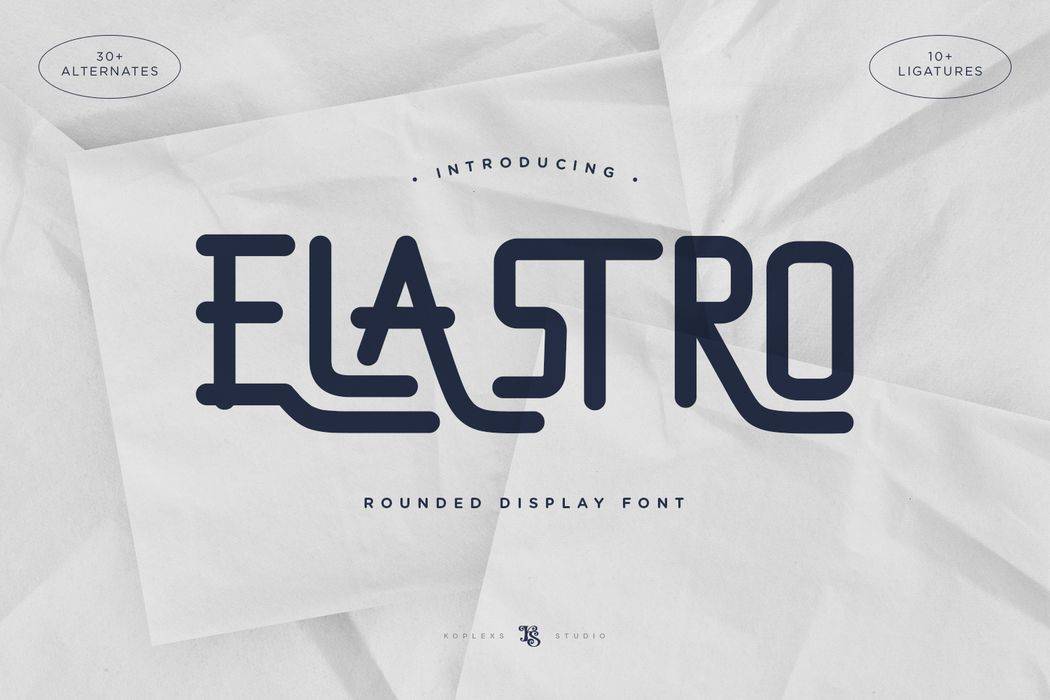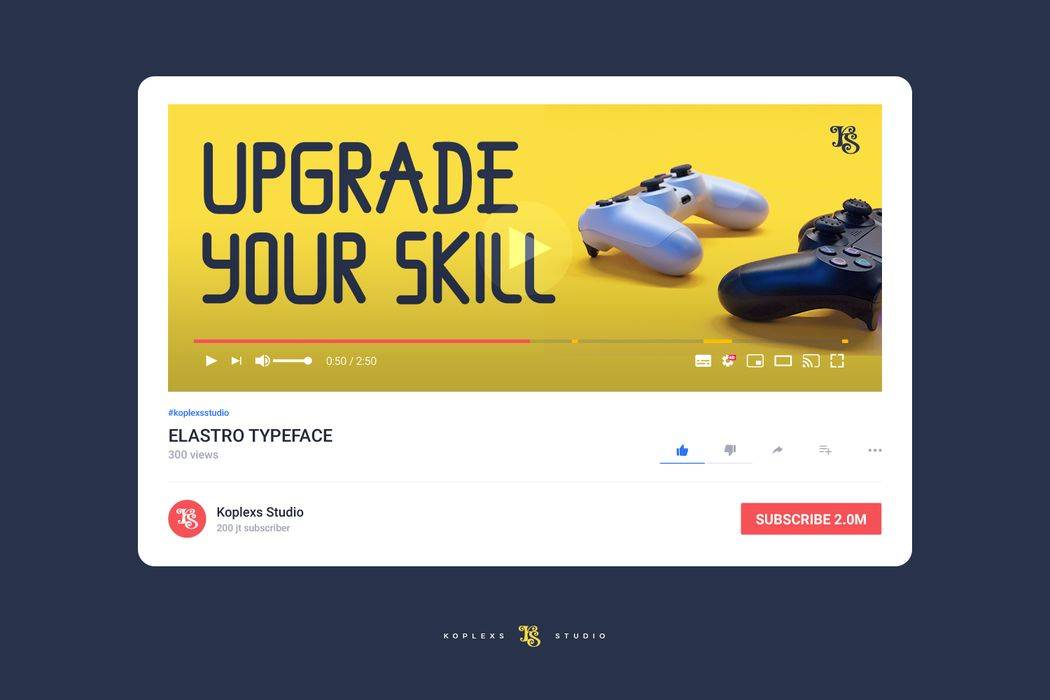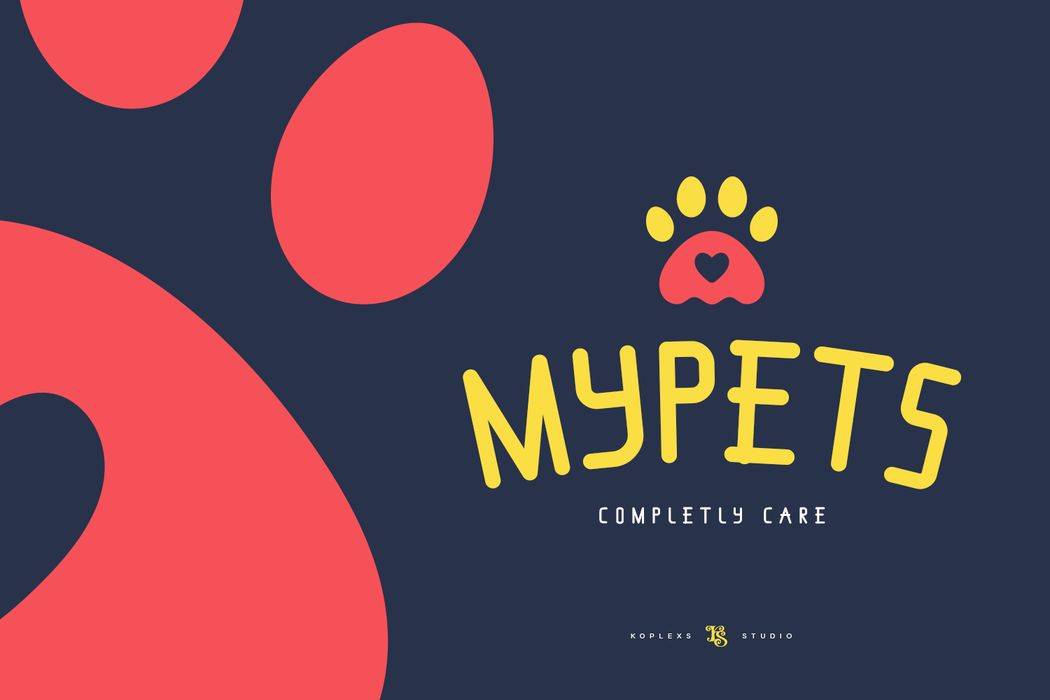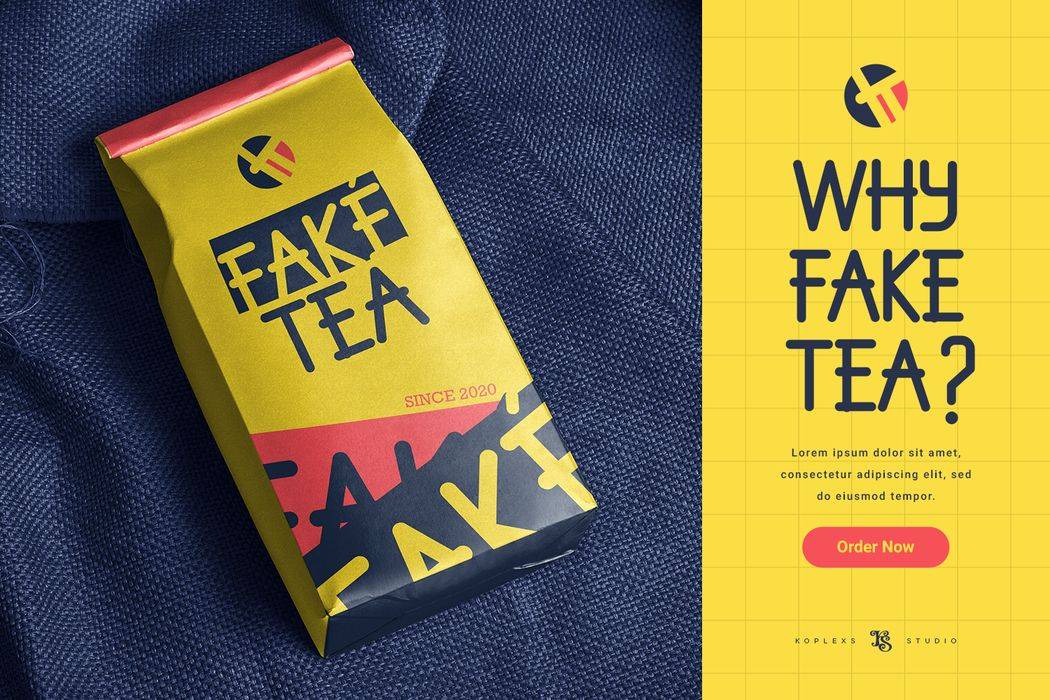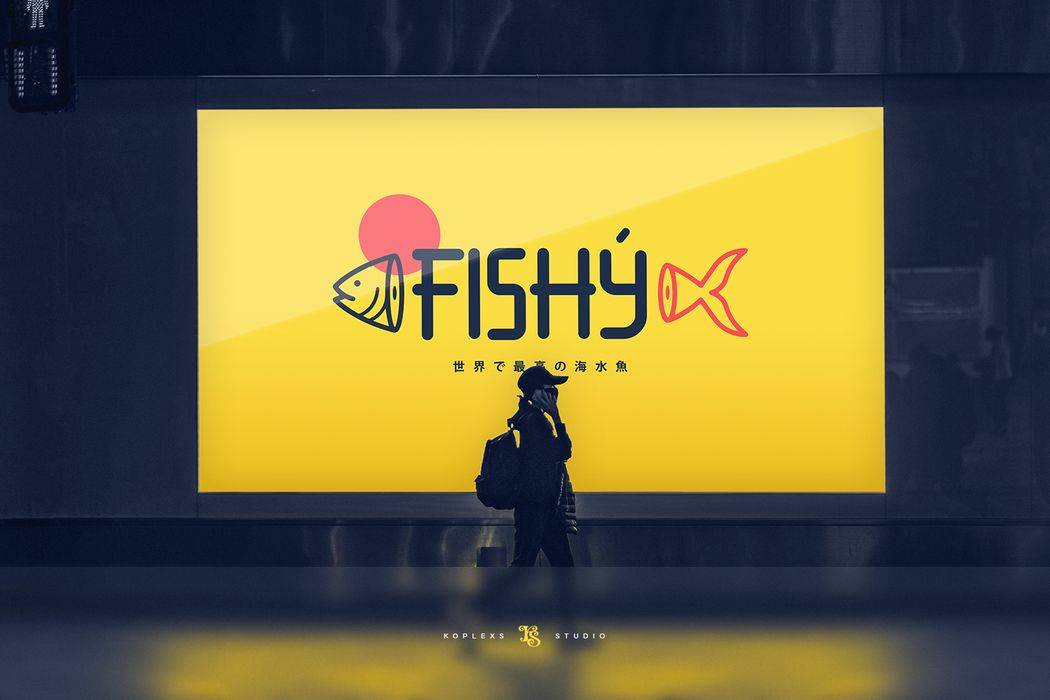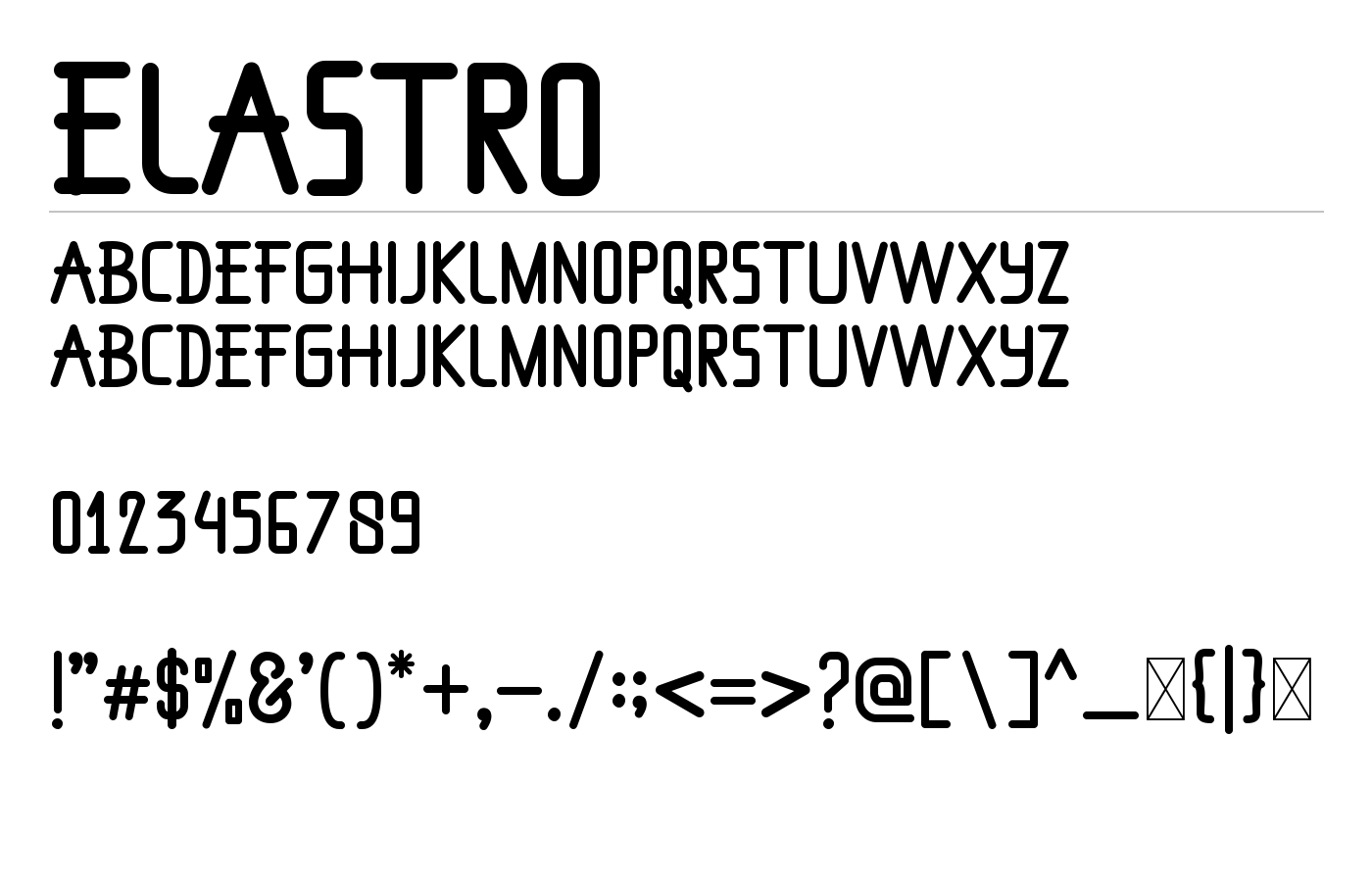
Elastro is a modern, narrow sans serif font with a distinctive, rounded geometric style that combines a clean, technical look with a playful edge. Its medium stroke weight, consistent width, and unique character shapes make it ideal for contemporary branding, headlines, and digital interfaces where a sleek, futuristic vibe is desired. This font works well in tech-focused designs and creative projects seeking a bold yet approachable aesthetic.